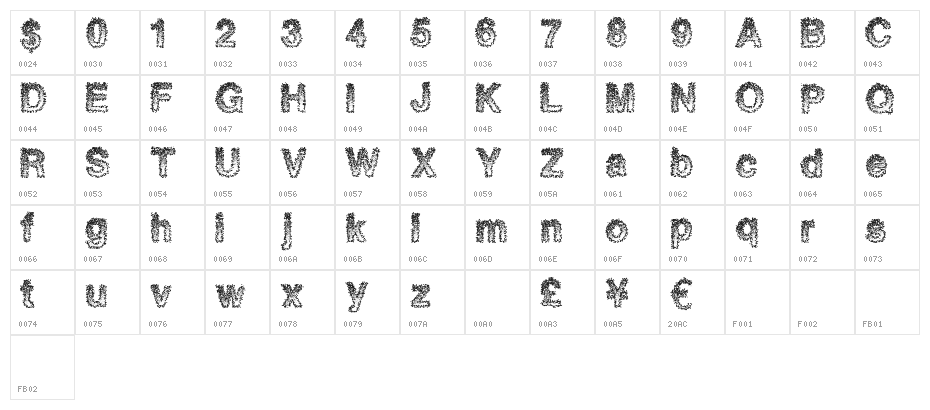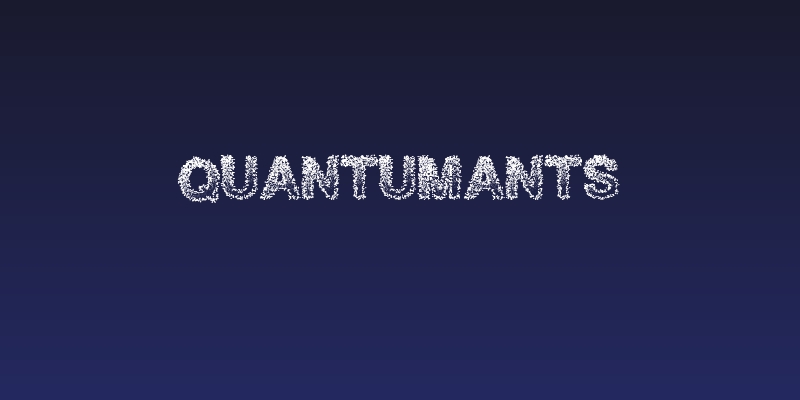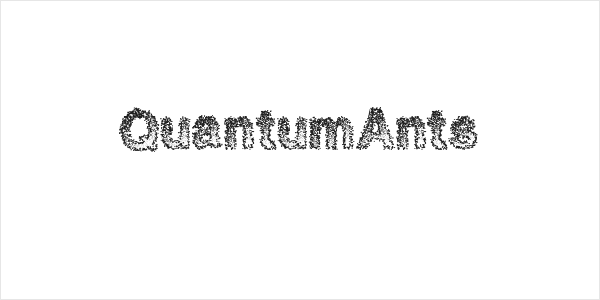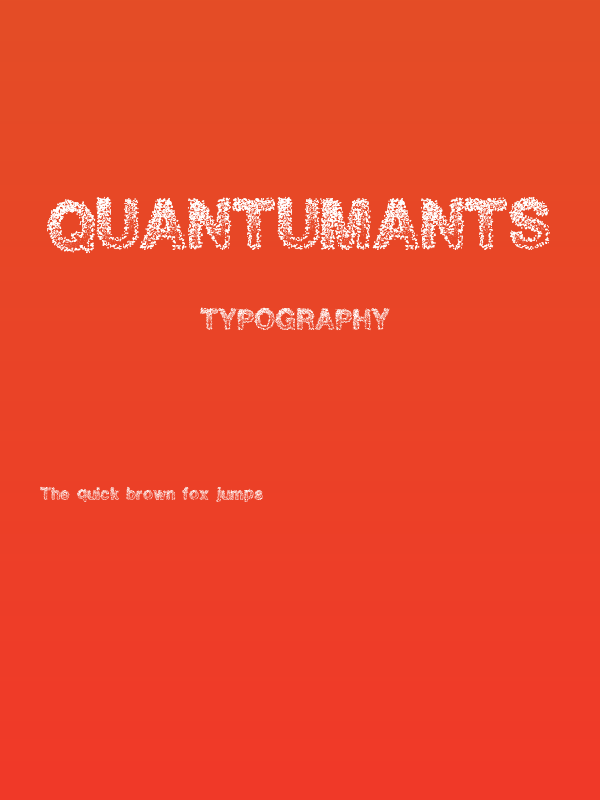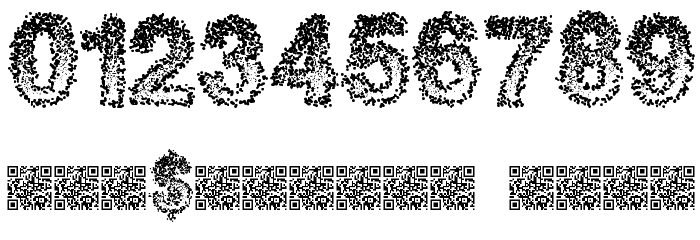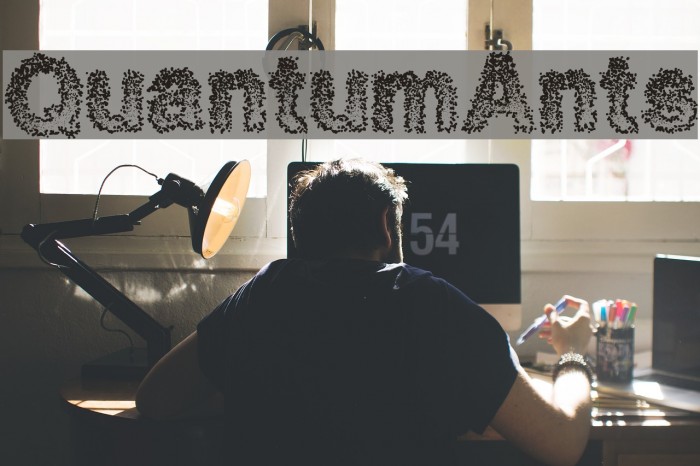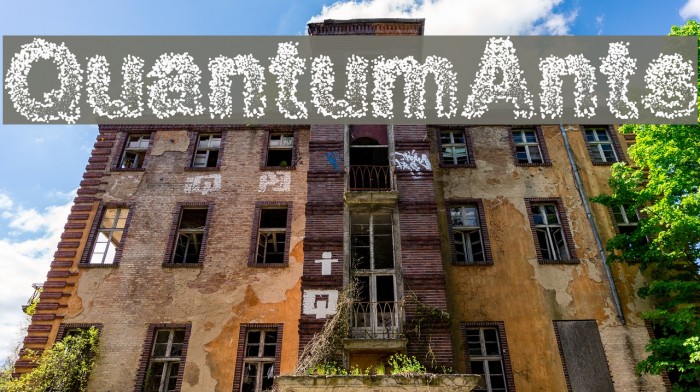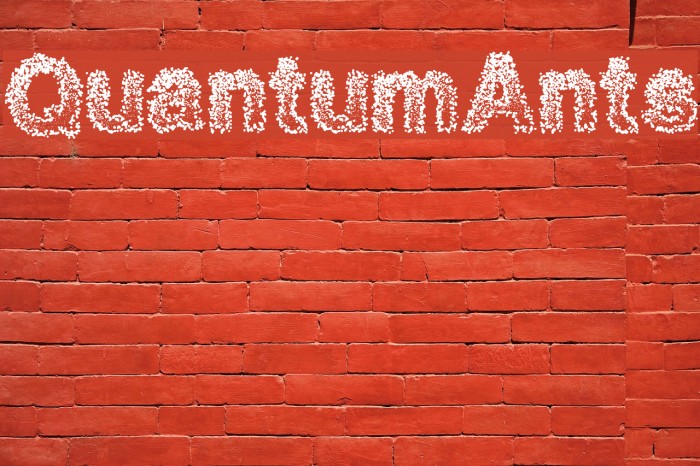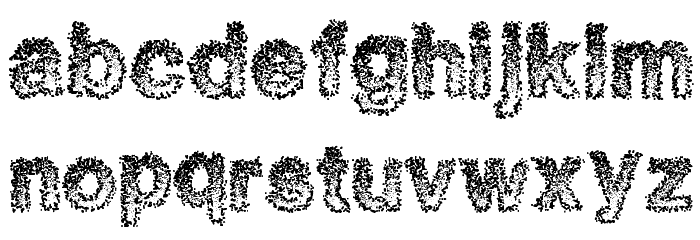
QuantumAnts Font
QuantumAnts Description
This font features a unique and intricate design, where each character is composed of numerous small, scattered dots, creating a textured and dynamic appearance. The letters maintain a consistent structure, ensuring readability while offering a visually engaging experience. The uppercase and lowercase letters, as well as numbers and special characters, all share this distinctive dotted style, making it suitable for creative and artistic projects. The font's playful and abstract nature can add a touch of whimsy and modernity to any design.
| Overall Style | Modern, Abstract |
| Use Case | Headlines, Logos, Artistic Designs |
| Proposed Projects | Ideal for artistic posters, modern branding, creative invitations, and digital artwork. |